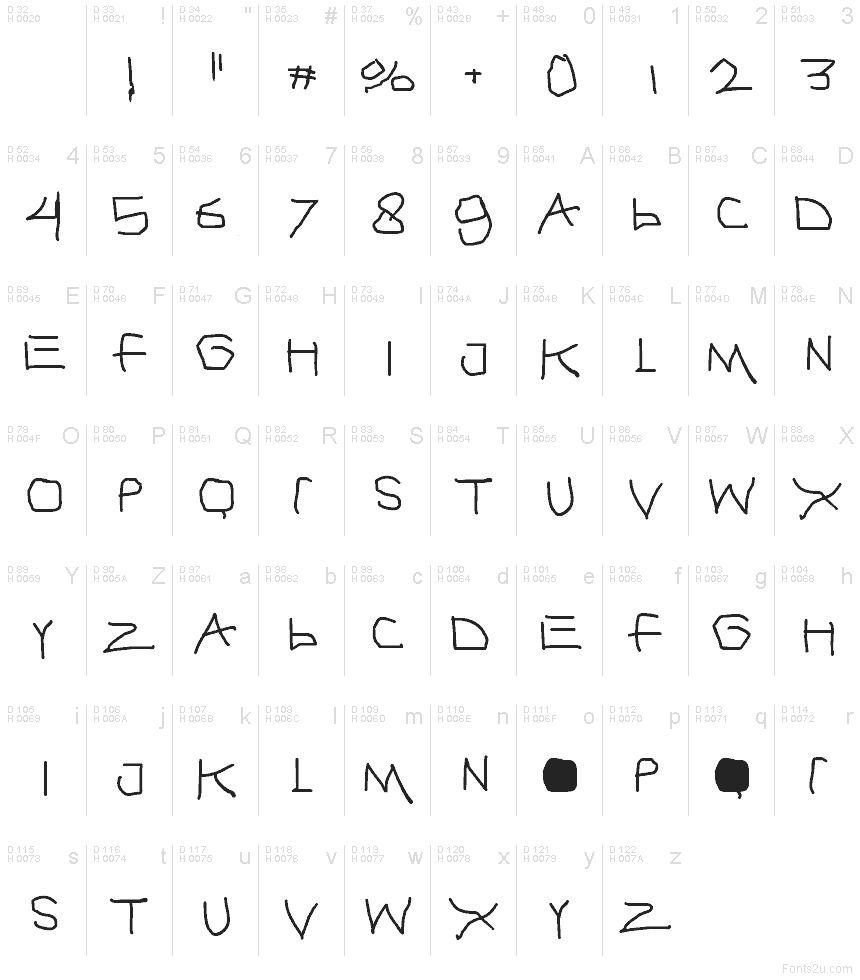
Strange Marks
Strange Marks font by Ffeeaarr is a free light handwritten typeface. Built from wiry, scratch-sketched strokes with crooked rhythm and ritual-like angles, it brings an eerie, hand-etched energy to headlines. The letters feel spidery and slightly off-kilter—thin lines, uneven baselines, and sharp turns that read like notes in the margins of a thriller.
Using Strange Marks, you’ll nail Halloween posters, horror trailers, escape-room branding, occult zines, mystery podcasts, indie game titles, and eerie packaging. This free font shines at larger sizes where its scratchy texture can breathe; add a touch of tracking for extra tension. Pair with a clean grotesk or monospaced sans to keep body copy steady against its restless, atmospheric forms.